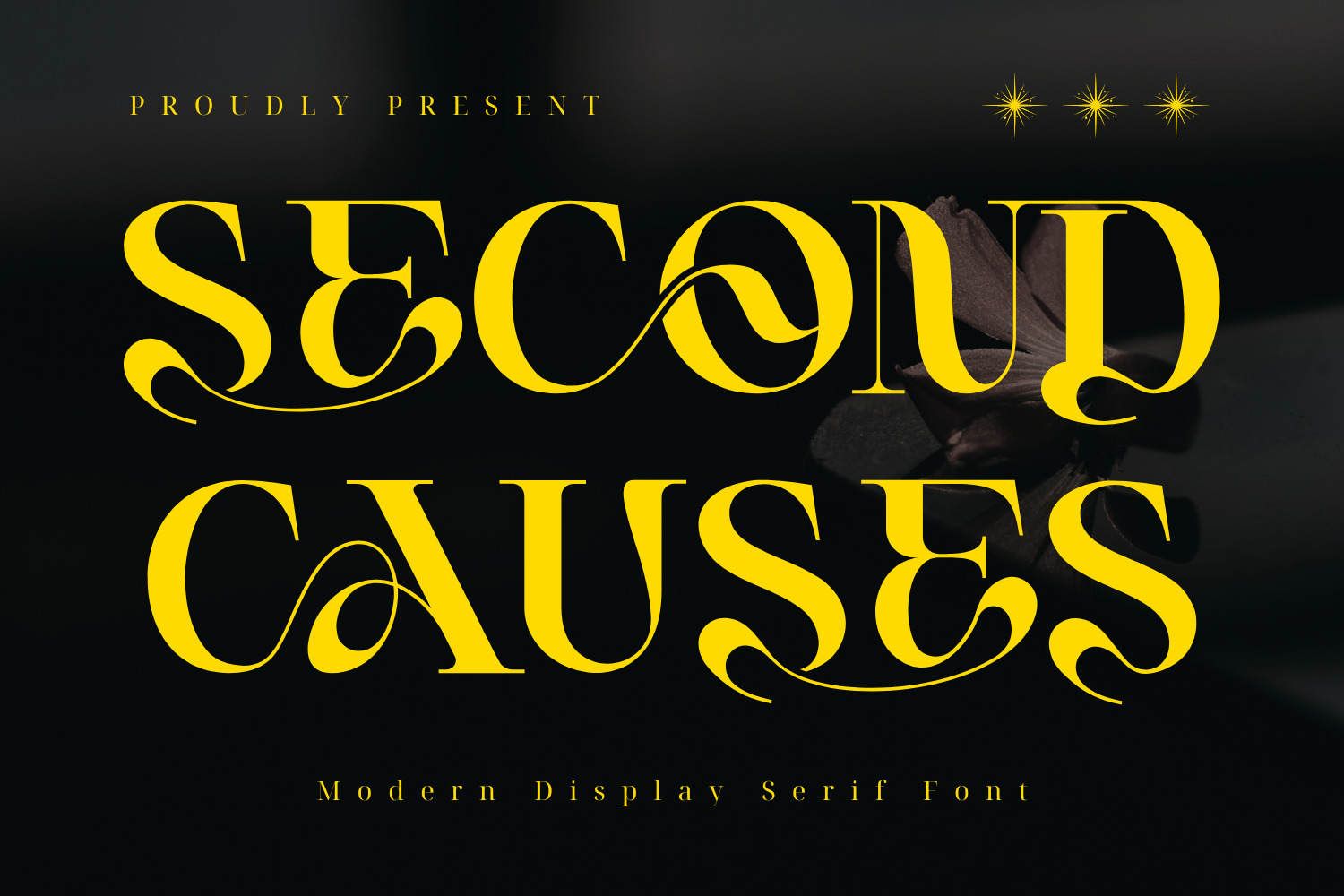
Second Causes Font
Second Causes Font - Ligature serif font is a bold retro display serif font available in regular and italic styles. Featuring stylish ligatures, this typeface brings a fun yet timeless touch to your designs. inspired by the famous minimalist logo perfect for the purposes of designing templates, brochures, videos, advertising branding, logos and more.
Second Causes was built with OpenType features and includes 100 ligatures, alternate, numbers, punctuation, and it also supports other languages.
AC AD AL AN AR AS AT AU AV BE CA CE CH CO CT DE DI EA EC ED EE EL EM EN EP ER ES ET FE FO FR GE HA HE HI HO IE IC IL IN IO IR IS IT JU KE LA LE LI LL LO LY MA ME MI NC ND NE NG NO NT NS OC OF OM ON OO OP OR OT OU OW PA PR RA RD RE RI RO RS RT SE SH SI SO SS ST TA TE TH TI TO TR TT UM UN UR VE WI WO
This font also included full set of:
- Uppercase letters
- Special Ligatures